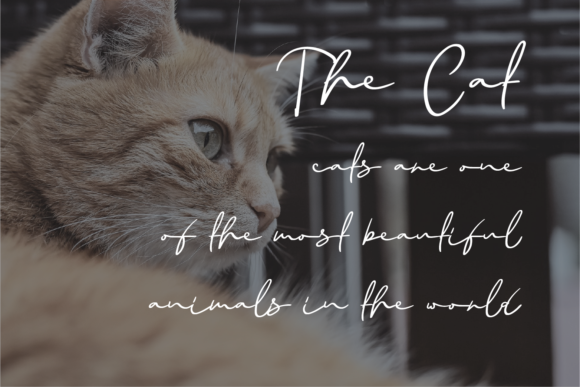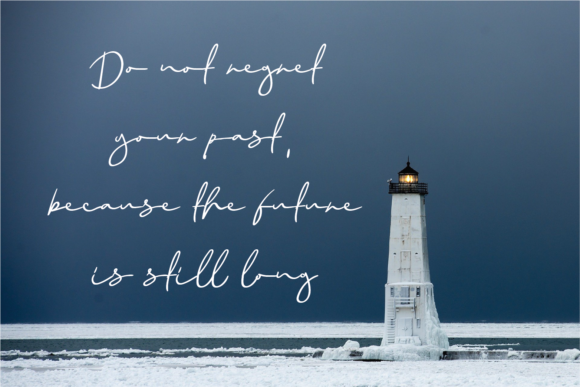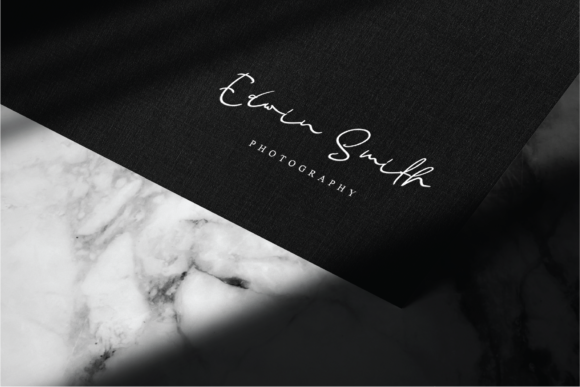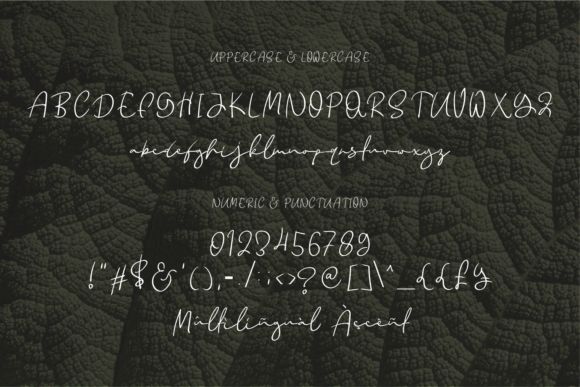
Unlock the Secret to Captivating Designs with Fatkarafa Font
Have you ever stared at a blank canvas, trying to come up with the perfect design, but nothing seems to spark your creativity? It’s a feeling we’ve all been through, and it’s where the magic happens. In these moments of uncertainty, a great font can be the difference between a mediocre design and a masterpiece.
Enter Fatkarafa Font, a polished and delightful script font that’s sure to breathe life into your designs. Whether you’re creating eye-catching logos, branding, or quotes, Fatkarafa Font is the perfect companion to help you bring your vision to life. Its unique touch on every letter makes it stand out from the crowd, giving your design a one-of-a-kind charm that’s sure to captivate your audience.
Fatkarafa Font Key Features
- Unique Characteristics: This font features a distinctive, hand-drawn aesthetic with organic flourishes and subtle texture, making it ideal for creative and artistic projects.
- Kerning and Ligatures: The font includes advanced kerning and ligature pairs, ensuring smooth and natural text rendering, even at small font sizes.
Designer Review: Fatkarafa Font
Overall, I was excited to dive into the Fatkarafa Font, with its unique blend of African and abstract influences. ✨ Here are some aspects that I think work well:
- ✨ Uniqueness: Fatkarafa truly stands out from the crowd with its eclectic style, making it perfect for designers looking to add a touch of exotic flair to their projects.
- ✨ Legibility: Despite its unconventional design, Fatkarafa is surprisingly readable, especially in larger font sizes.
- ✨ Versatility: This font is suitable for a wide range of applications, from logos and branding to body text and headings.
However, there are some limitations that might hold back designers:
- ⚠️ Limited font sizes: Fatkarafa starts to lose its readability and legibility when scaled down to smaller font sizes.
- ⚠️ Limited support: Some characters may not be compatible with certain software or operating systems.
- ⚠️ Steep learning curve: The font’s unique style may require some time and experimentation to get used to.
Overall, I think Fatkarafa is a great addition to any designer’s toolkit, especially for projects that require a bold, exotic look. However, it’s essential to be aware of its limitations and use it judiciously.
For the best results, use Fatkarafa Font in conjunction with bold or italic styles to create visual contrast.
- Typography for cultural or traditional designs.
- Headlines and titles for African-inspired projects.
- Body text for academic or research papers related to African studies.
Alternatives to Fatkarafa Font for Designers
Great Vibes is a modern, elegant script font ideal for creating a sophisticated and stylish look. It’s perfect for use in titles, headings, and other high-impact text elements.
Compared to Fatkarafa Font, Great Vibes has a more refined and polished appearance, making it suitable for formal and professional designs.
Dancing Script is a lively, handwritten font that adds a touch of whimsy and personality to designs. It’s great for use in creative and artistic projects, such as invitations, posters, and social media graphics.
Dancing Script has a more casual and playful feel compared to Fatkarafa Font, making it ideal for designs that require a more relaxed and approachable tone.
Carolyna Pro is a sleek, modern sans-serif font that’s perfect for use in clean and minimalist designs. It’s great for titles, headings, and body text, and is highly legible at various font sizes.
Compared to Fatkarafa Font, Carolyna Pro has a more streamlined and modern appearance, making it suitable for designs that require a clean and contemporary look.